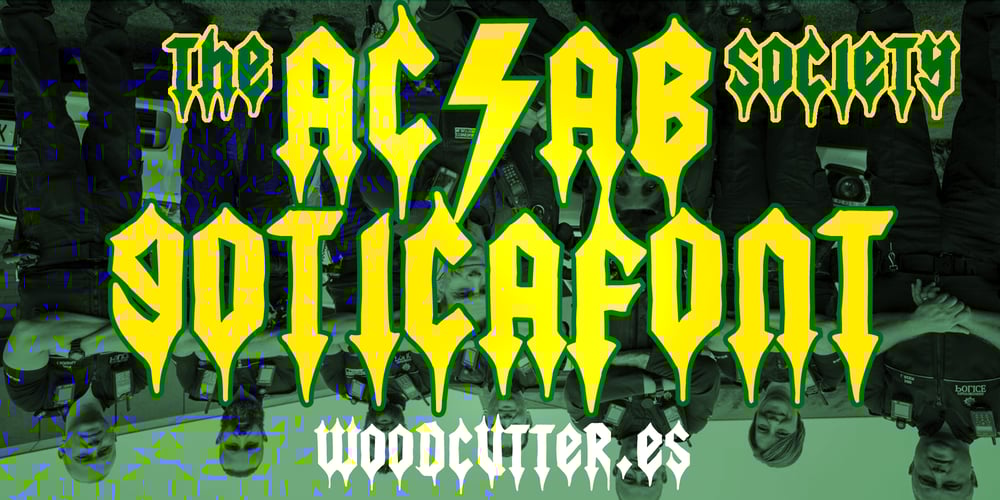
The Acab Society Font Family was designed by Jordi Manero and published by Woodcutter. The Acab Society contains 1 styles and family package options. “The Acab Society” is an all-uppercase font that combines a playful aesthetic with a modern gothic style. Despite its dark inspiration, the irregular and handmade shapes give it a more casual and approachable feel. The letters, with their bold and solid strokes, create a contrast between traditional and modern styles, making it ideal for projects that aim for a balance between rebellious and fun. It’s perfect for bold graphic designs, eye-catching posters, or branding projects with an irreverent touch.